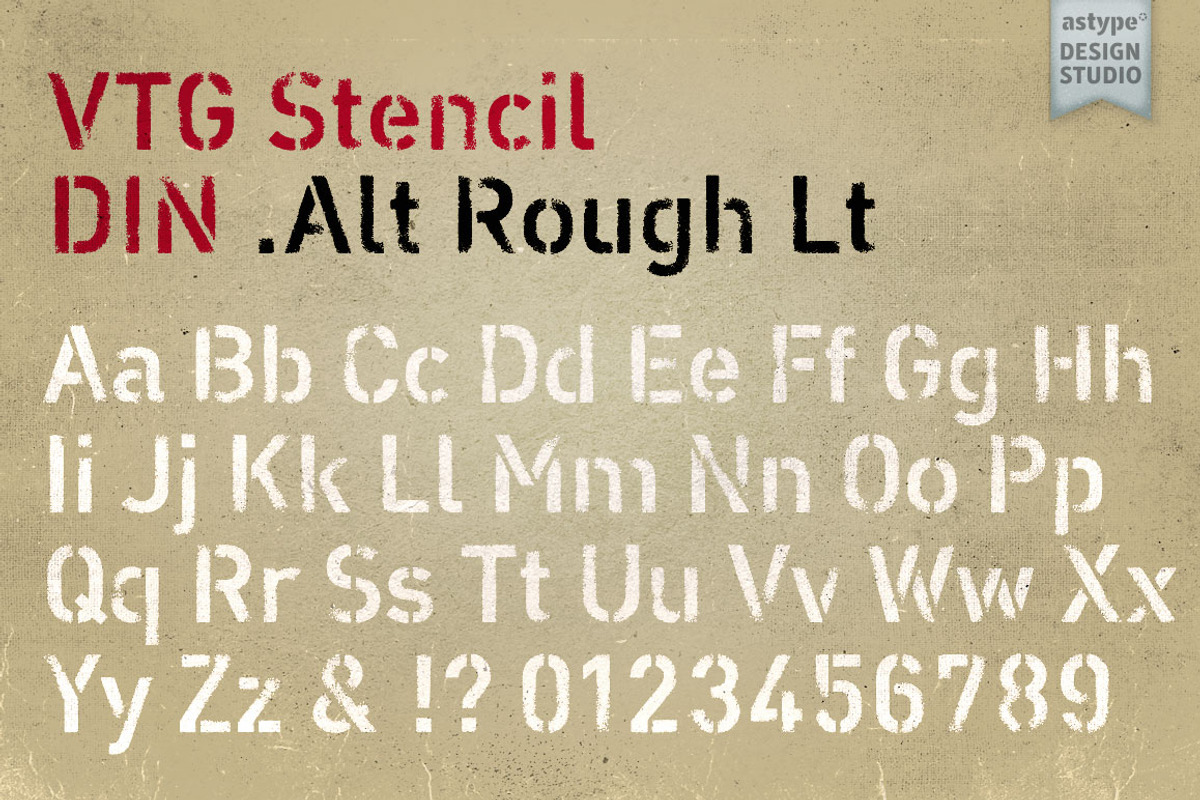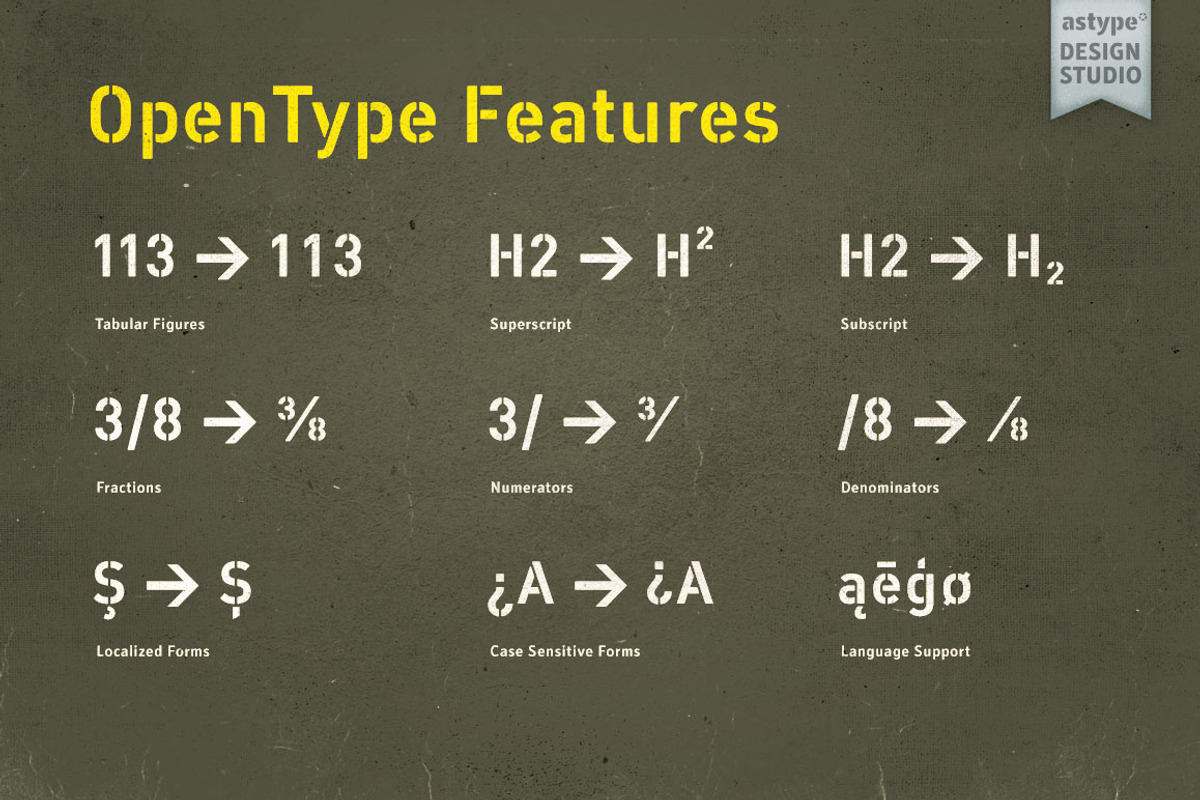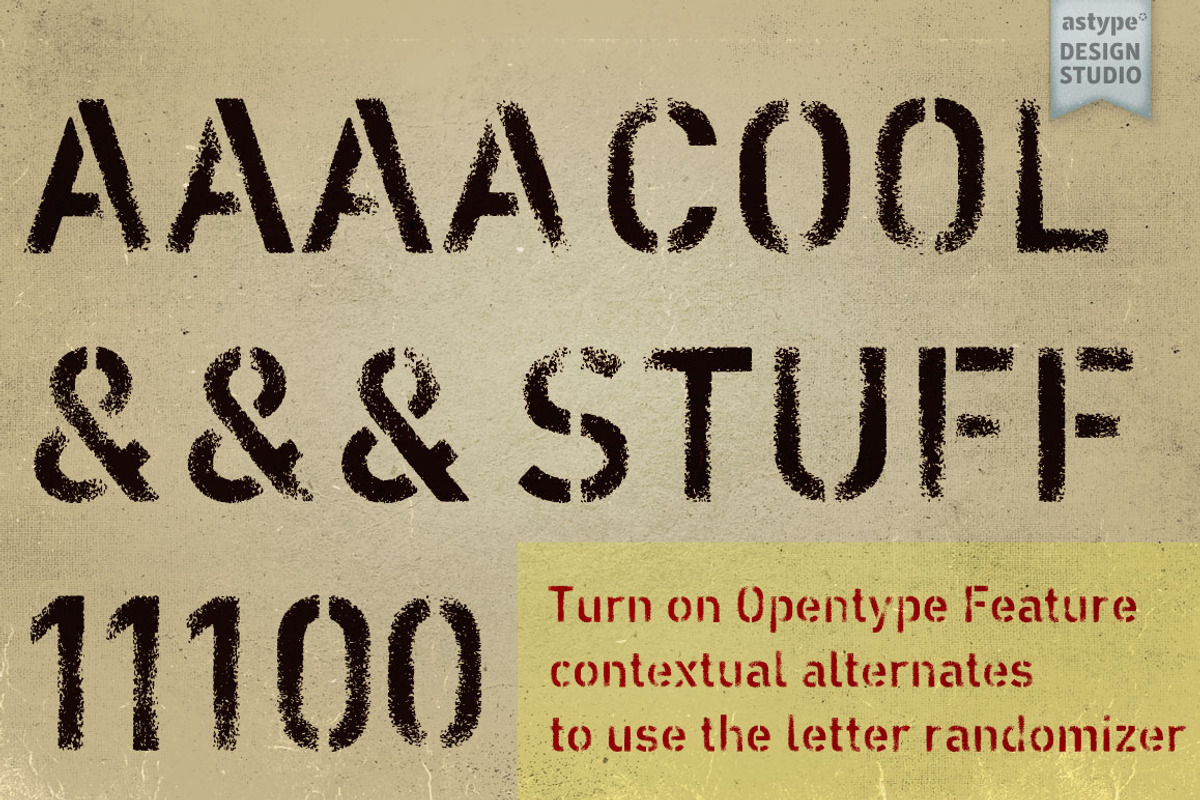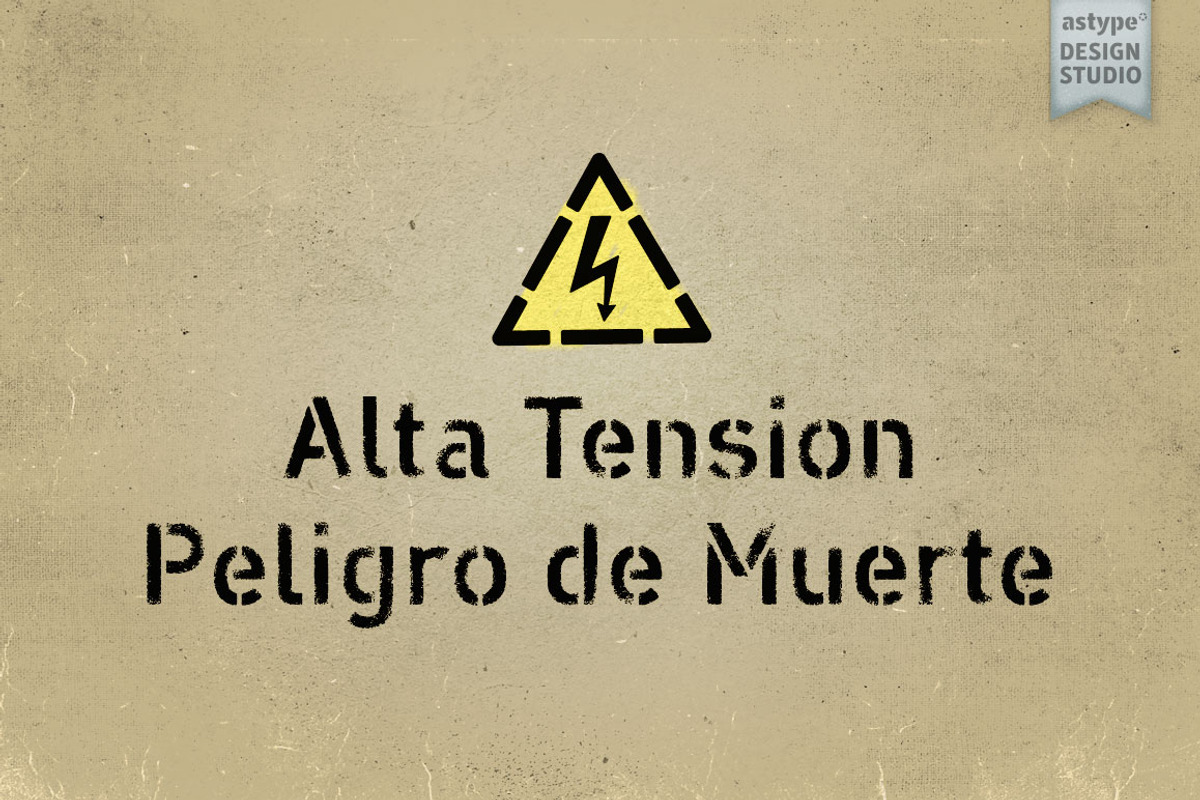
Vtg Stencil DIN - Alt Rough Lt
The Vtg Stencil DIN fonts were developed to made the most common stencil type of Germany available in digital type. This package includes the Alt Rough Lt style.
The font has an build in letter randomizer. Please check you have turned on contextual alternates in your application. Note: Not all systems and application support these OpenType features. supported apps: Adobe Illustrator, Adobe Photoshop, Adobe InDesign, Affinity and more
The font supports Latin Extended character set, so most of the Latin script based languages of the world are supported.